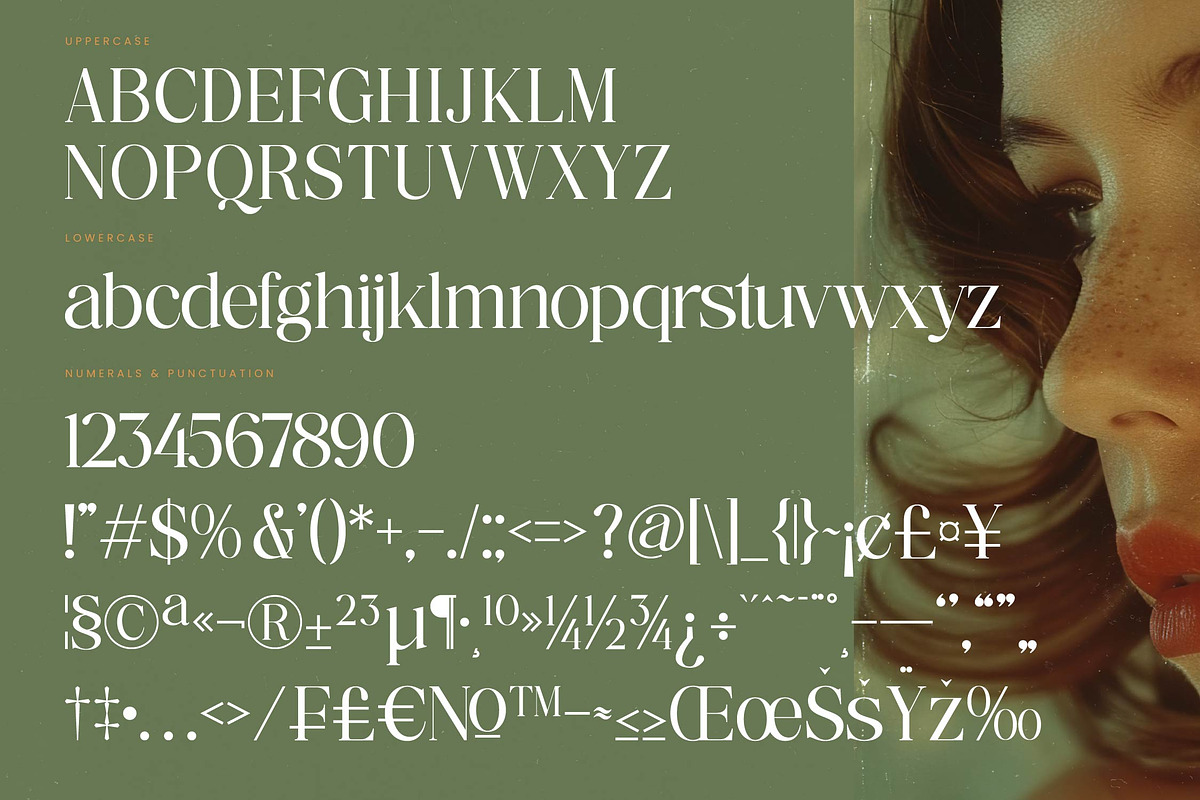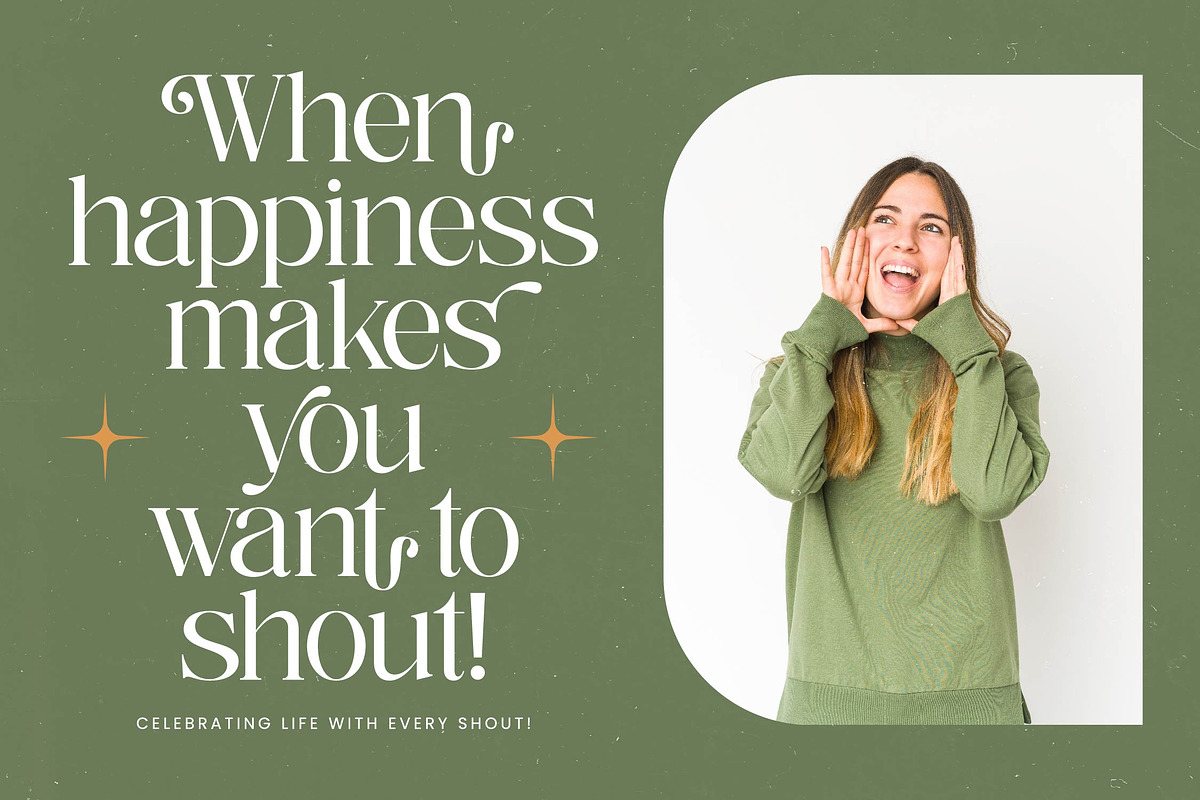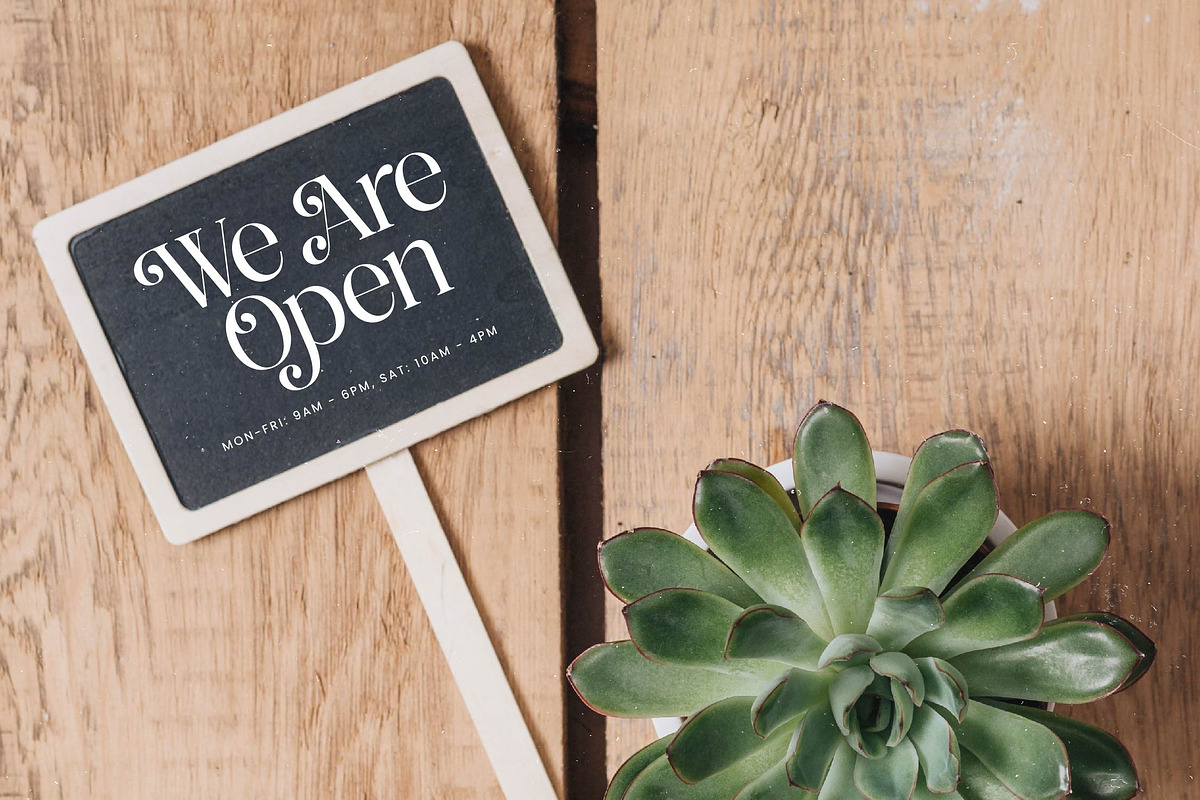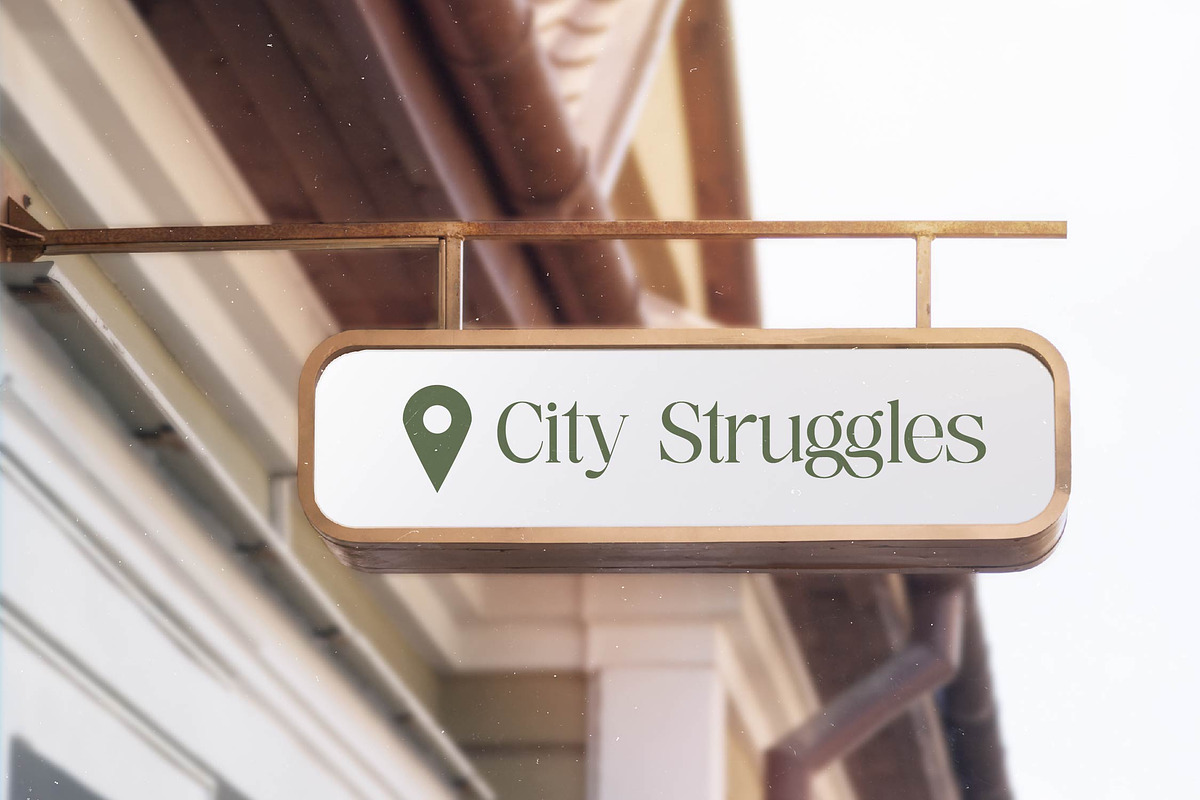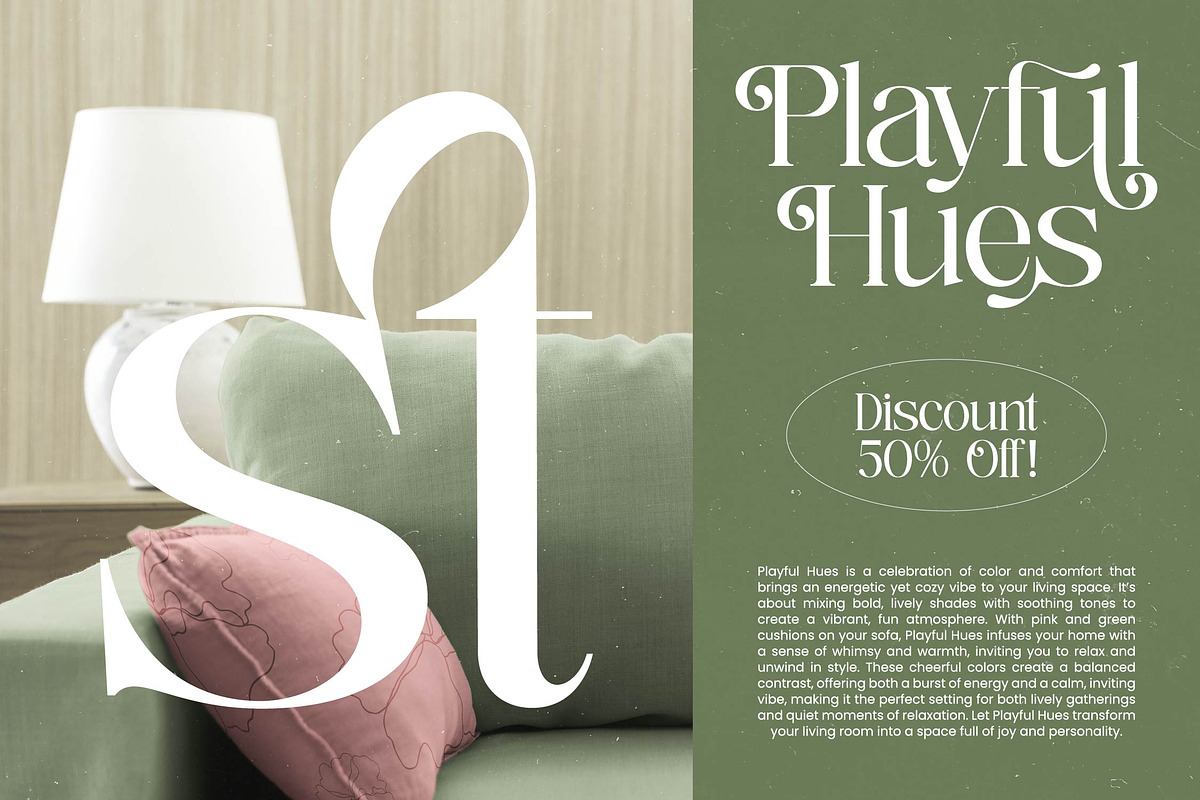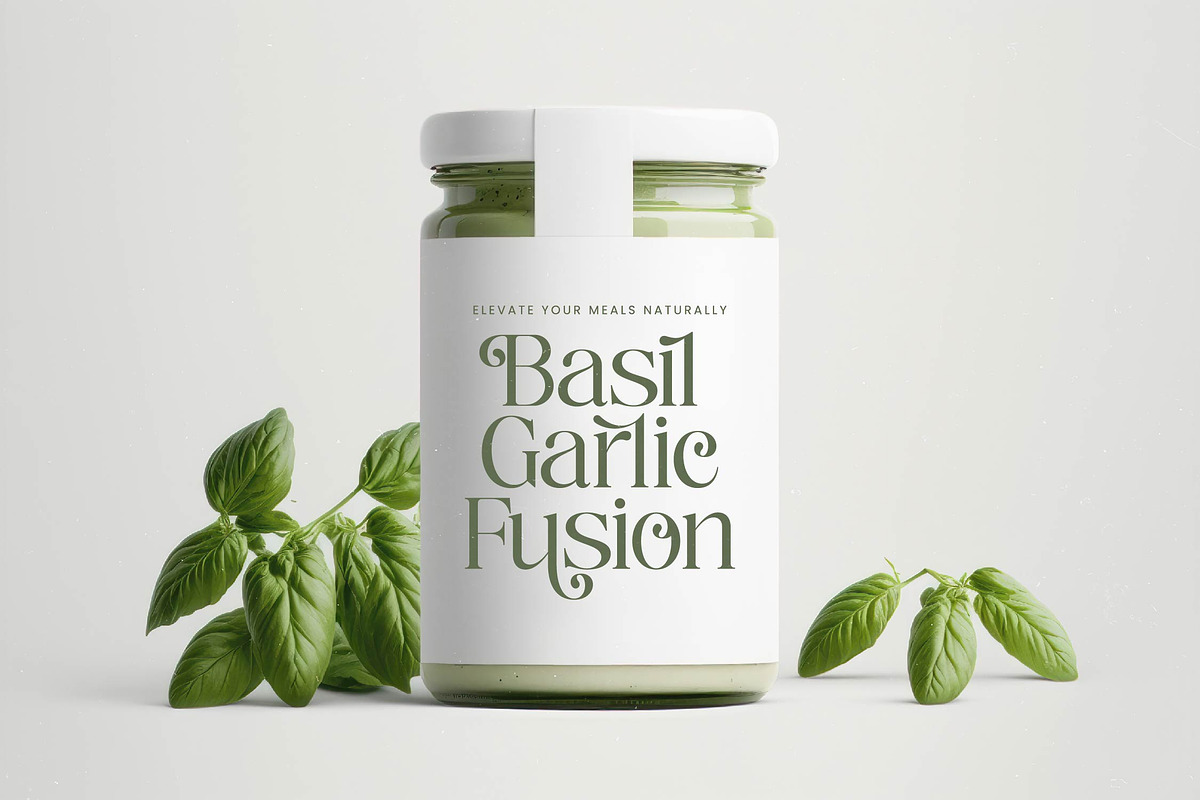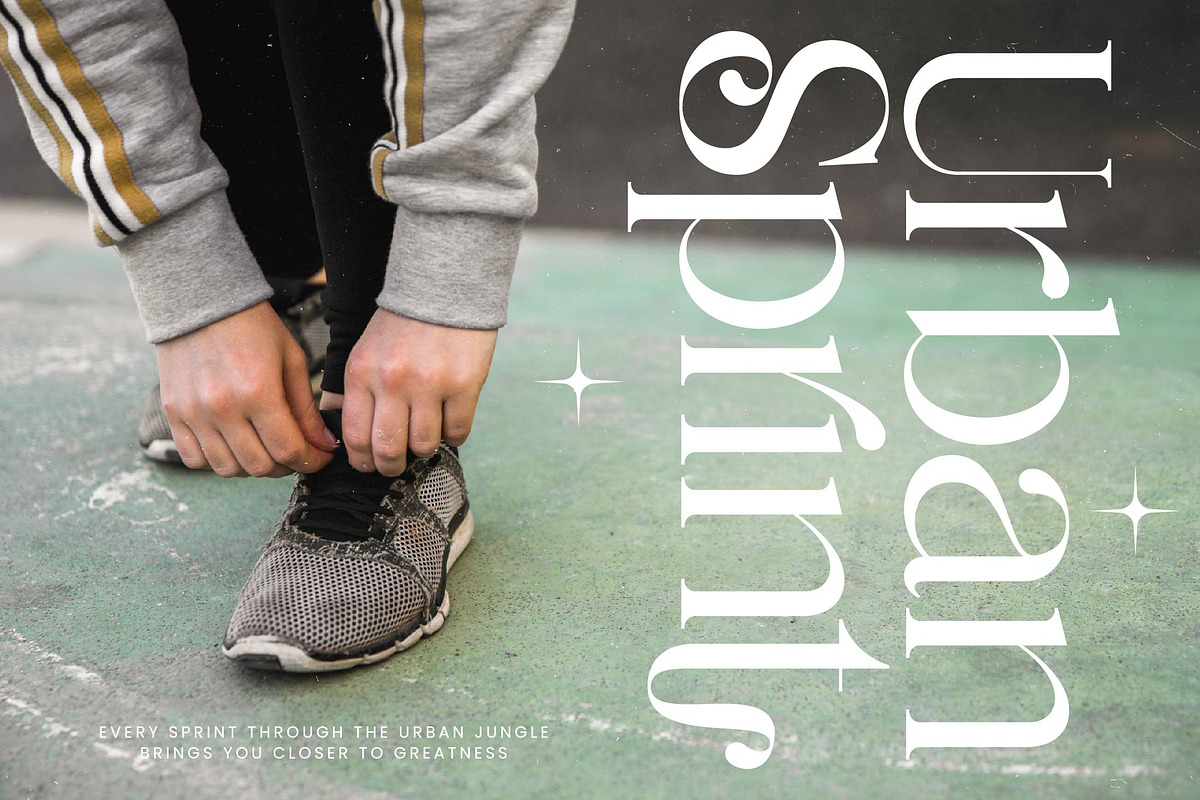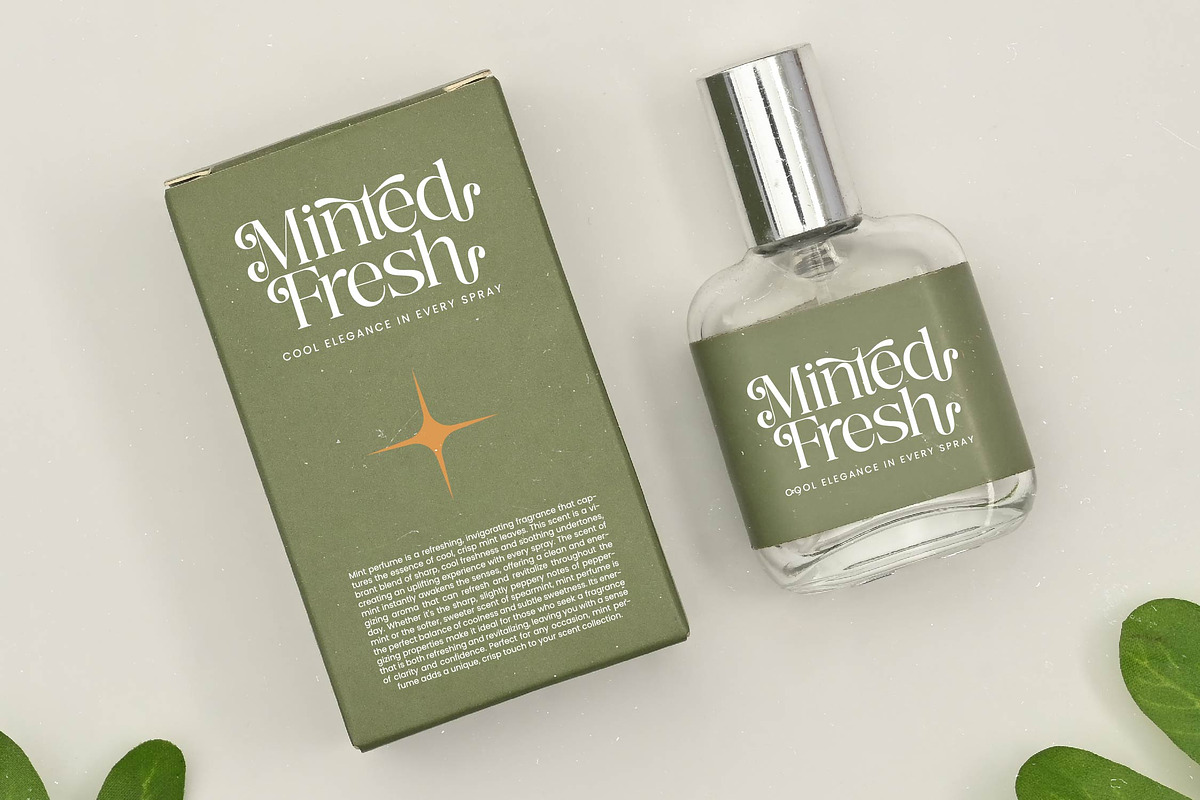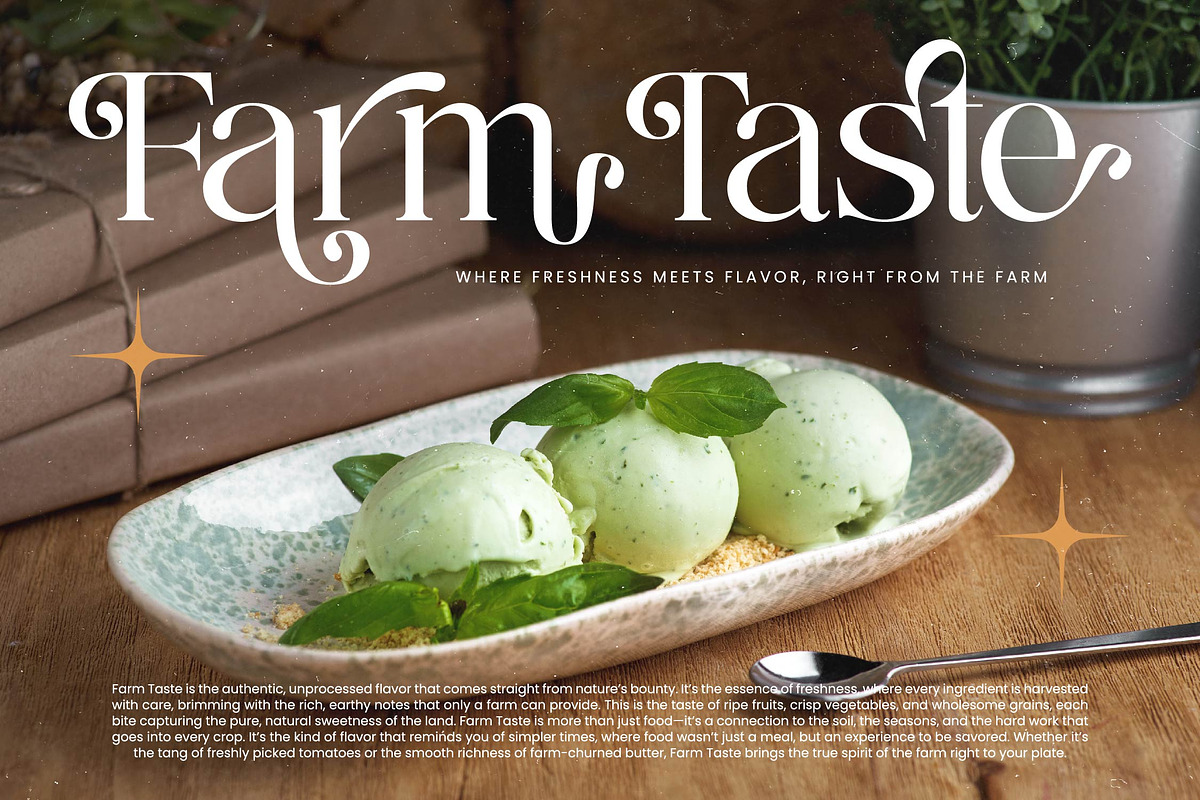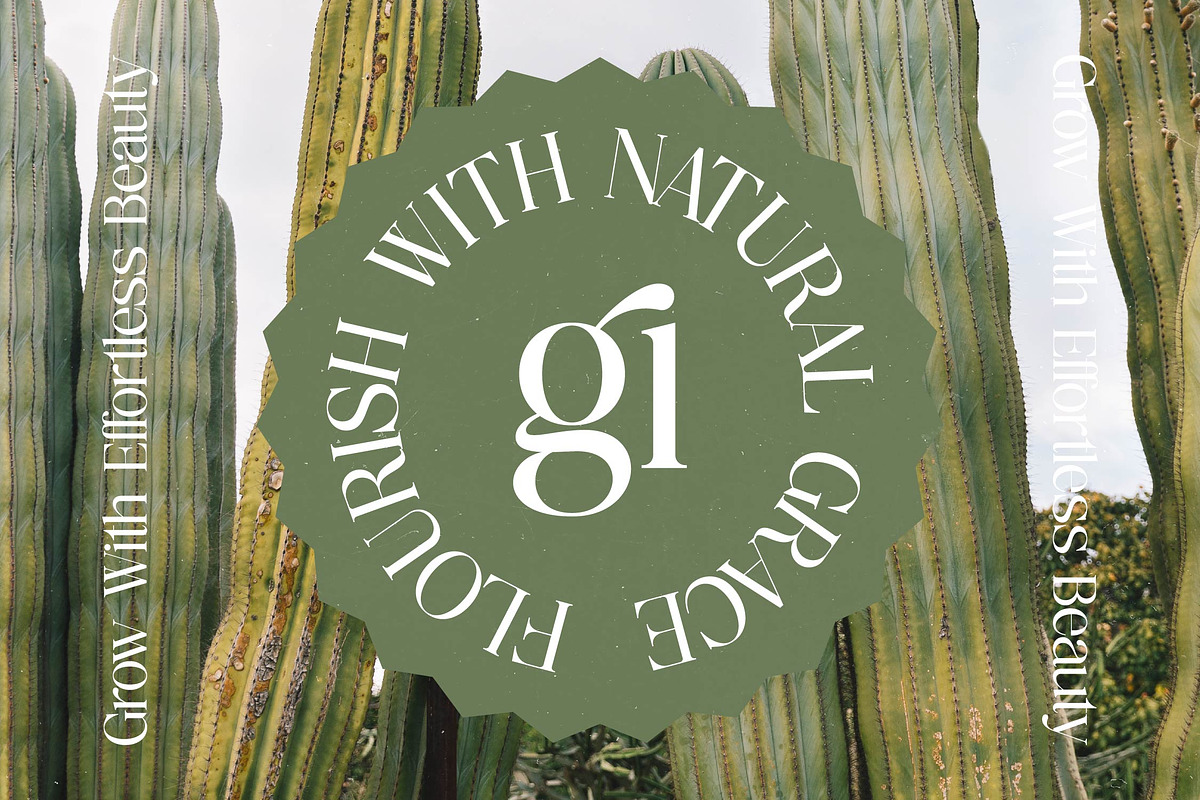
Nostalgic Flashy Modern Serif
Nostalgic Flashy is a stunning journey through time, blending the grace of the past with the bold confidence of contemporary design. It is more than just a typeface; it is an evocative statement piece for creators who crave distinction.
Inspired by the golden age of cinema and the timeless allure of vintage magazine mastheads, this font captures a dreamy, cinematic atmosphere. It evokes a sense of sun-drenched memories and sophisticated glamour found in heritage design archives.
As a modern serif display, this typeface exudes luxury typography with its high-contrast serif strokes and elegant silhouettes. It functions perfectly as an editorial font designed for maximum branding impact, making every word feel curated and intentional.
Tapping into the current modern serif trend, this typeface meets the demand for editorial display fonts that offer more than just legibility. It leans into the shift towards character-driven typography, allowing designers to break away from sterile minimalism in favor of expressive, soulful letterforms.
This versatile font is the ultimate tool for high-end logo design and comprehensive branding projects that require a touch of class. Whether it is used for editorial layouts, luxury packaging, romantic wedding stationery, or avant-garde fashion campaigns, it delivers an unmistakable aura of prestige.
To ensure complete creative freedom, the set includes a rich library of ligatures and unique alternates that allow for custom-tailored compositions. Its decorative swashes are complemented by full multilingual support and a wide array of international characters, making it a global solution for sophisticated design.
- Ligature 23 Alternate 82